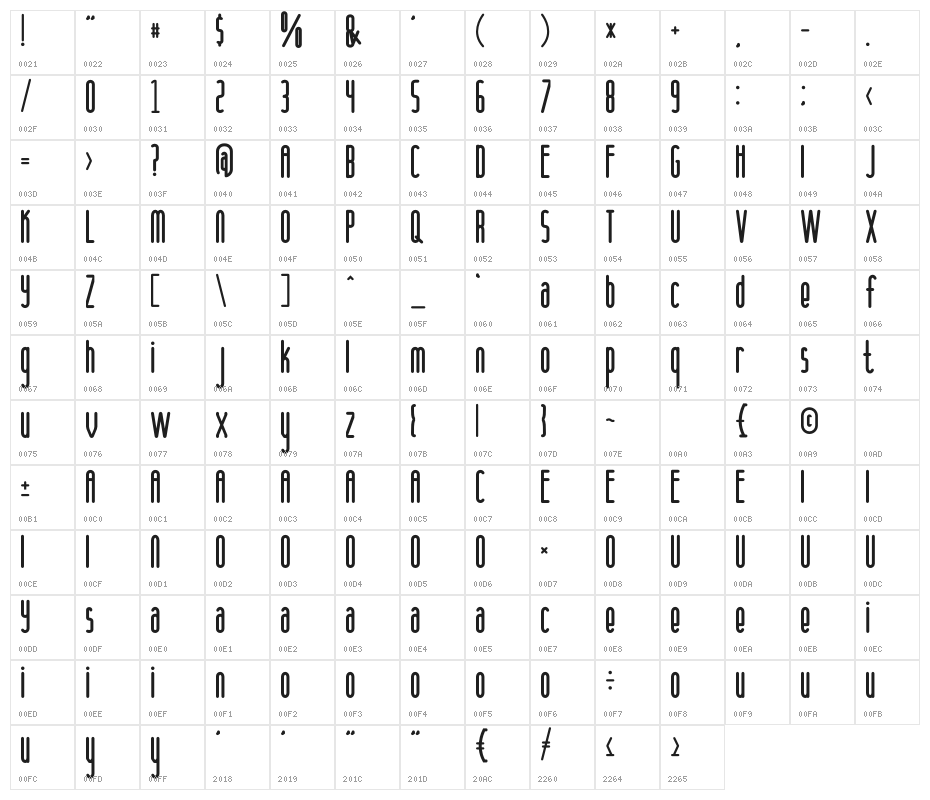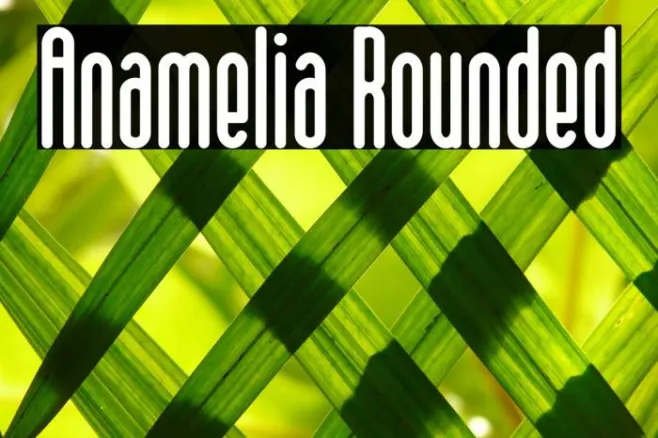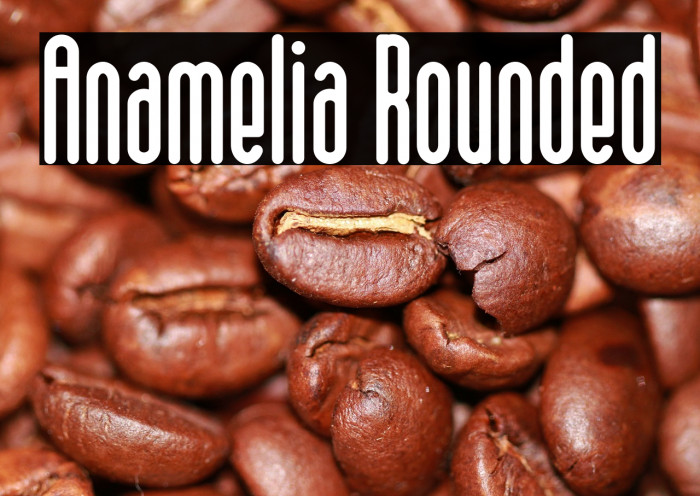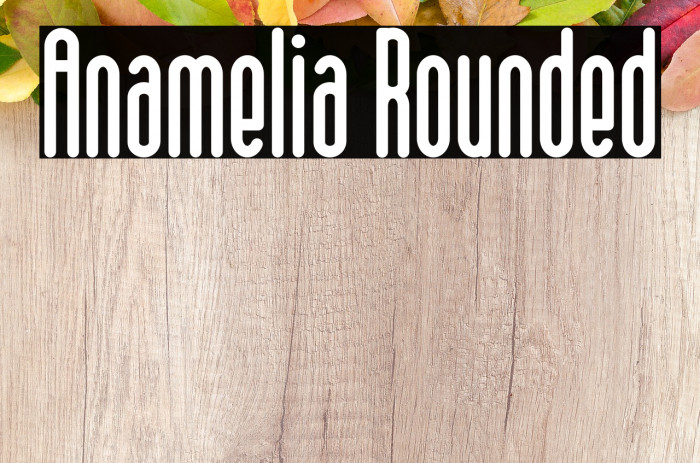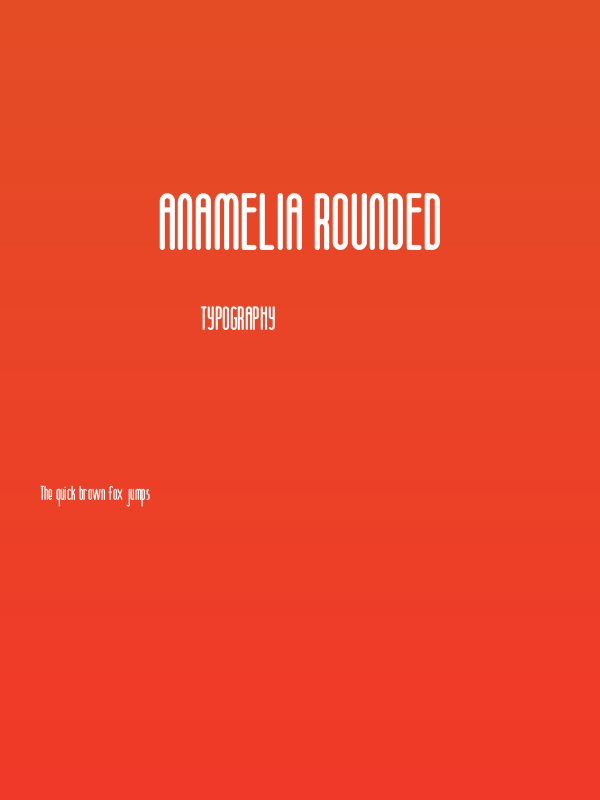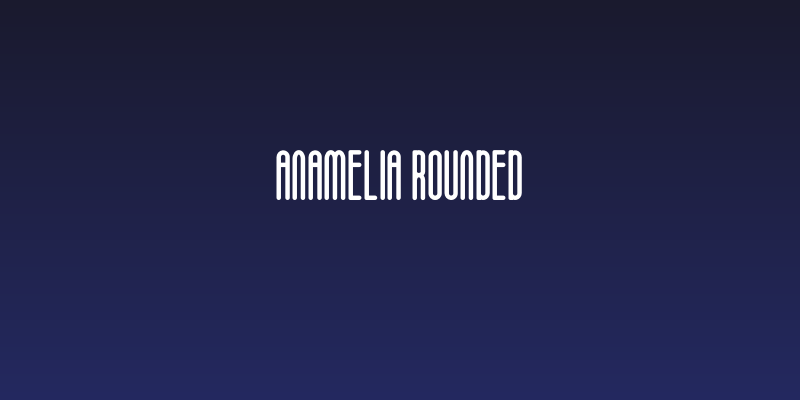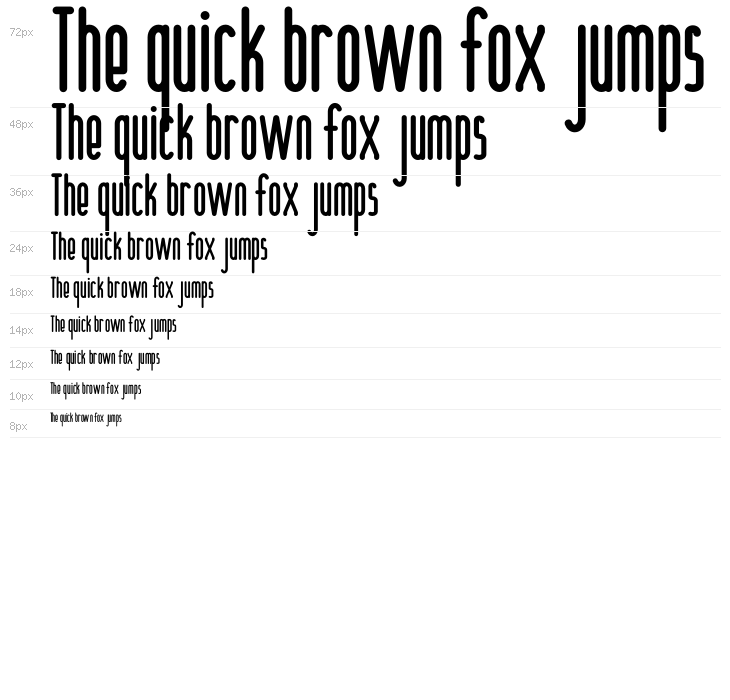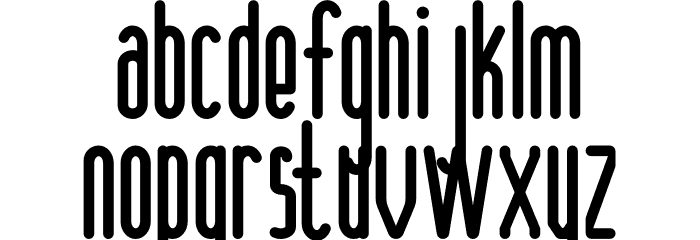
Anamelia Rounded Font
Anamelia Rounded Description
This font features a modern, rounded design with elongated letterforms that give it a sleek and contemporary appearance. The characters are tall and narrow, with smooth curves and a consistent stroke width that adds to its clean aesthetic. The rounded edges soften the overall look, making it approachable and friendly. The numerals and special characters maintain the same rounded style, ensuring uniformity across all glyphs. This font is versatile, suitable for a variety of design applications where a modern yet approachable feel is desired.
Use CaseHeadlines, Logos, Branding
Proposed ProjectsIdeal for branding, packaging, digital media, and advertising projects where a modern and friendly typeface is desired.